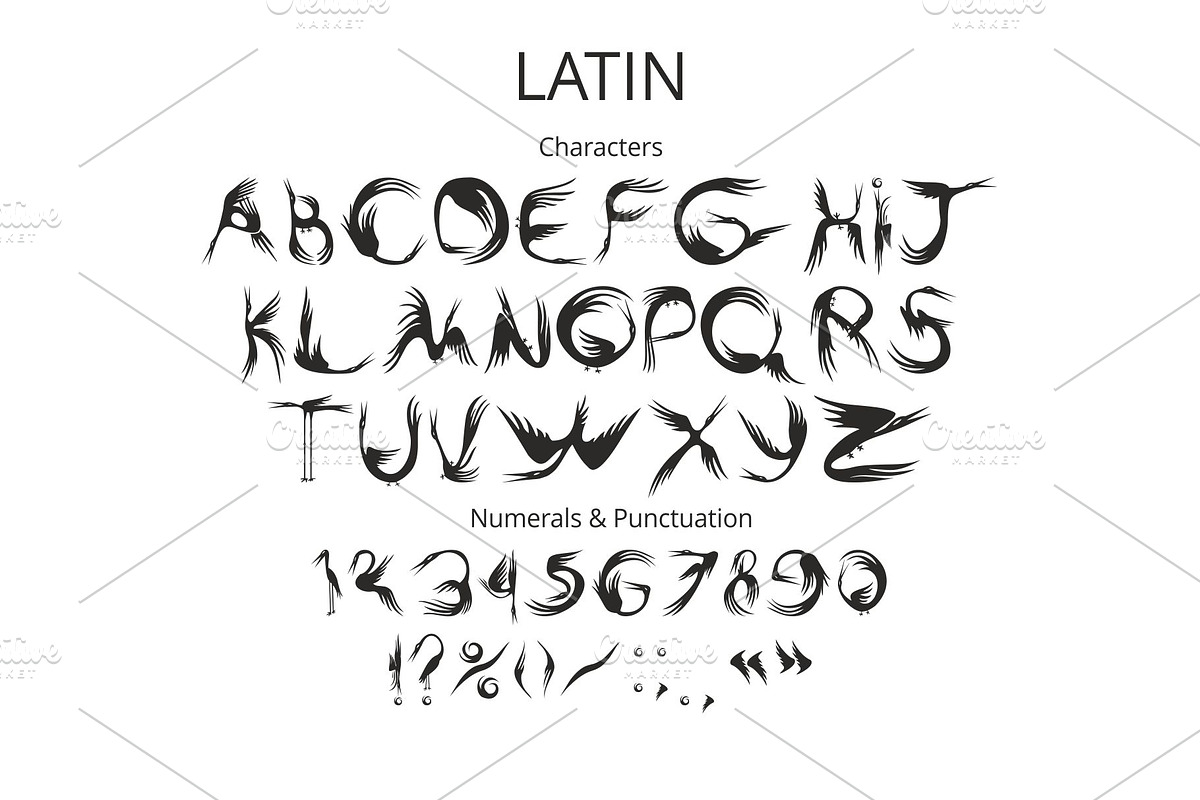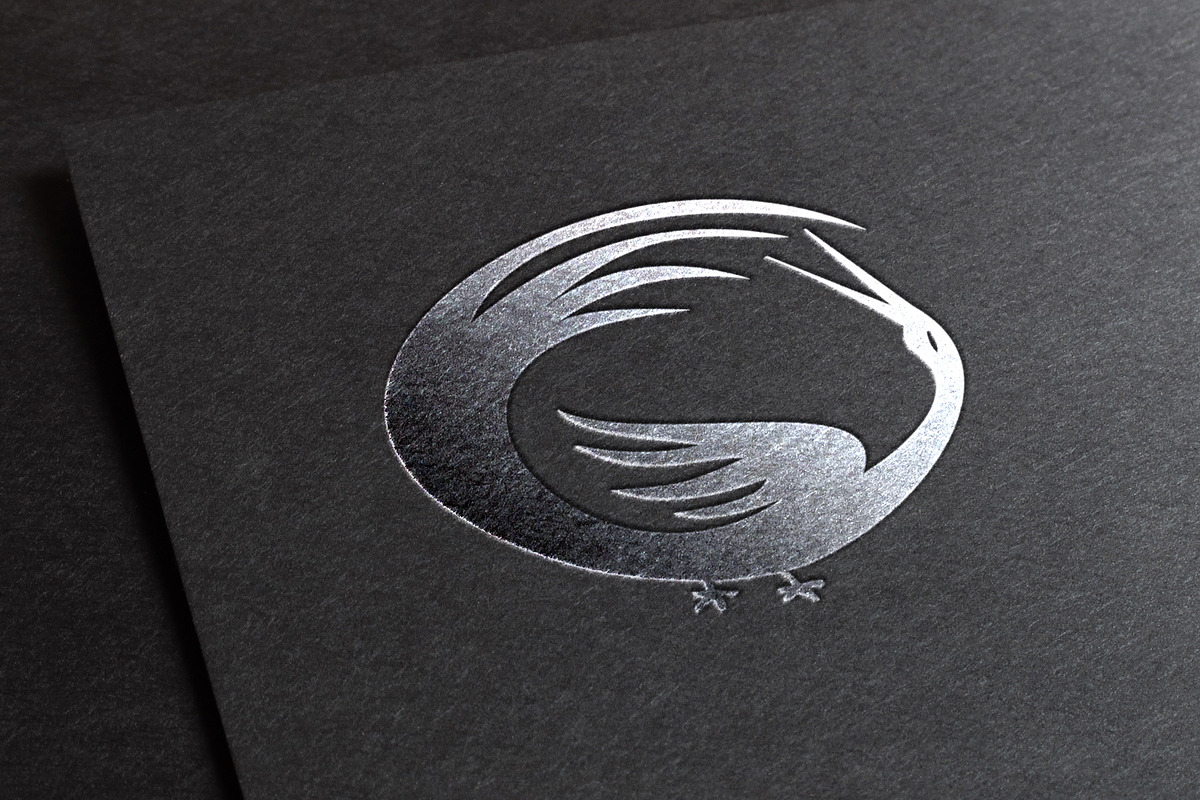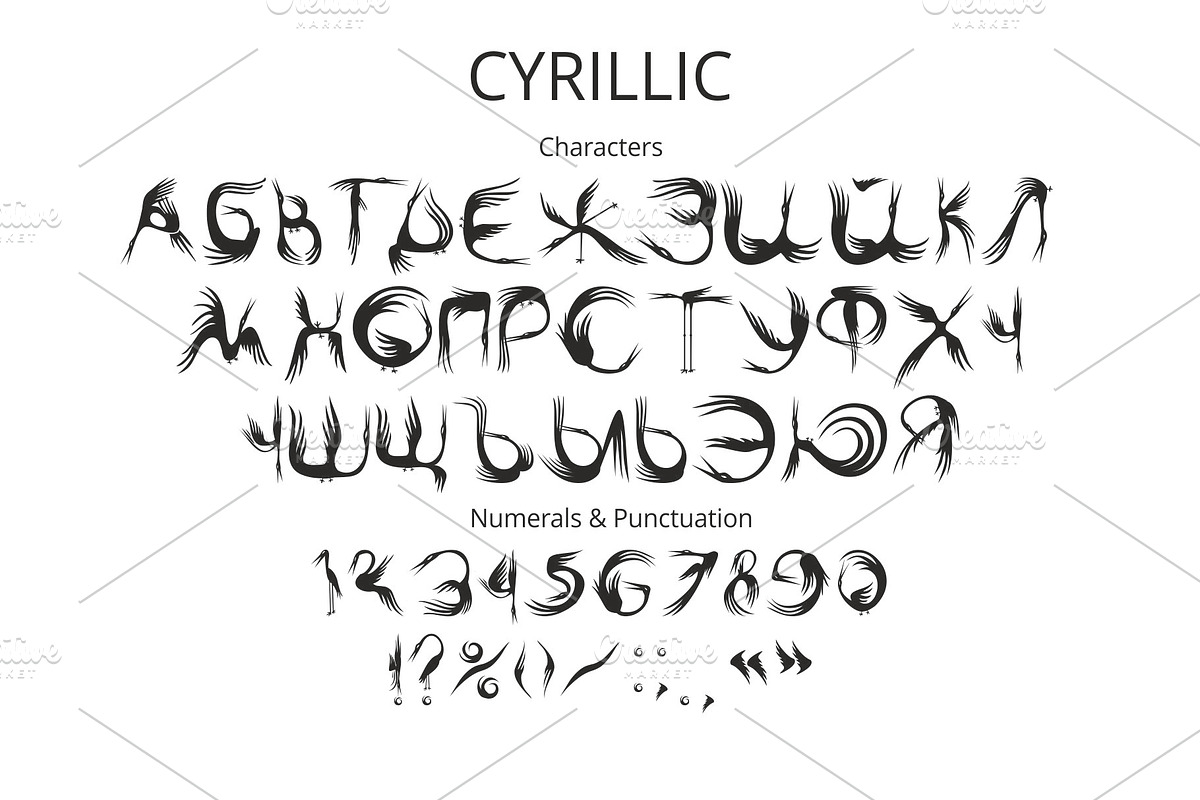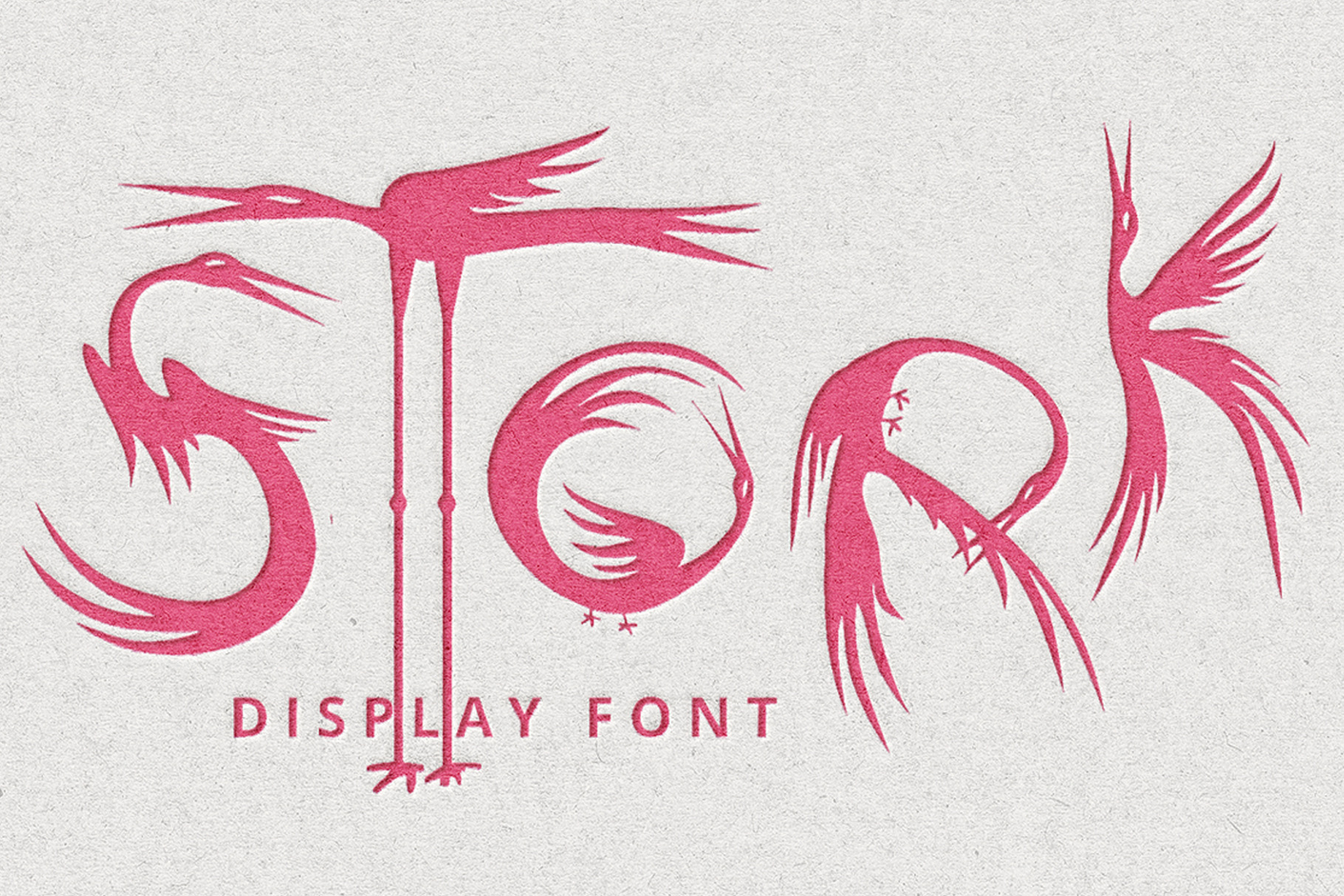
Stork font
Stork font with Latin and Cyrillic letters! This font work nicely for all sorts of things including t-shirt design, typographic art, social media images and so much more!
Font features: Standard characters A-Z, 0-9,and punctuation. Latin Basic and Western European set, Cyrillic А-Я set. Thanks and Enjoy!